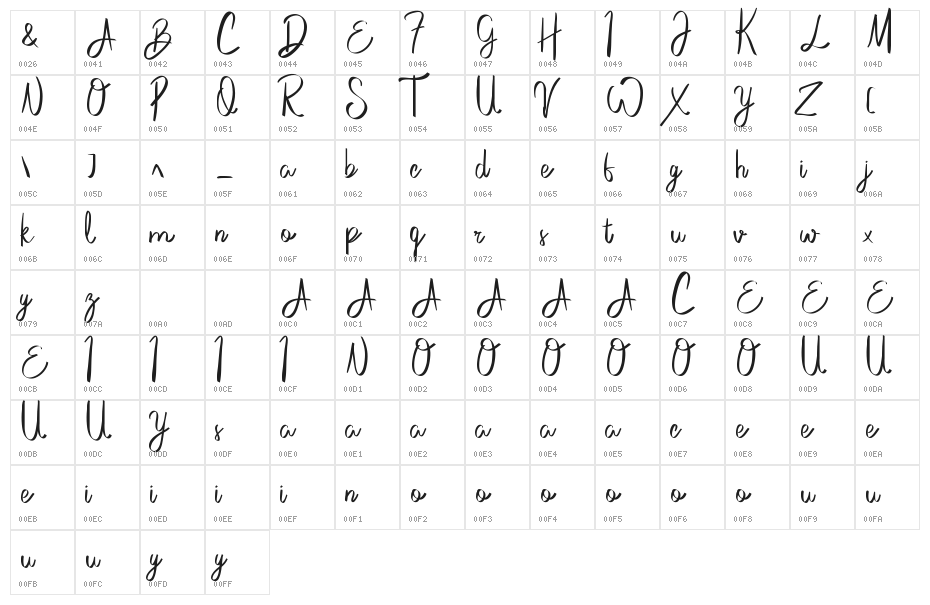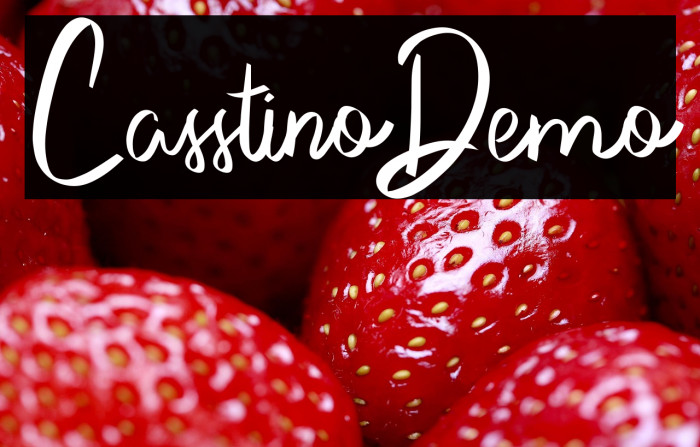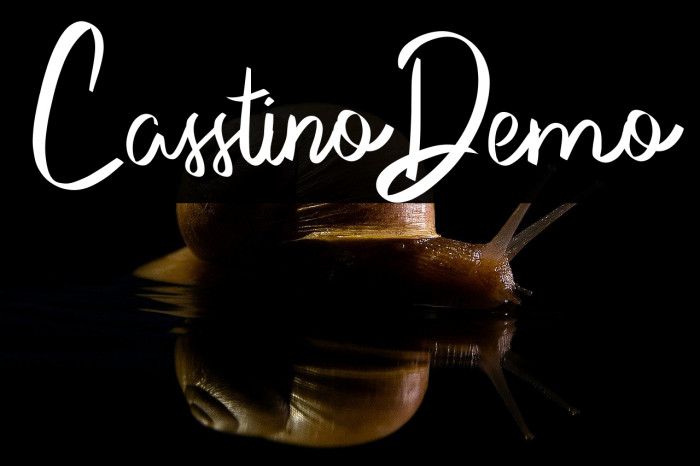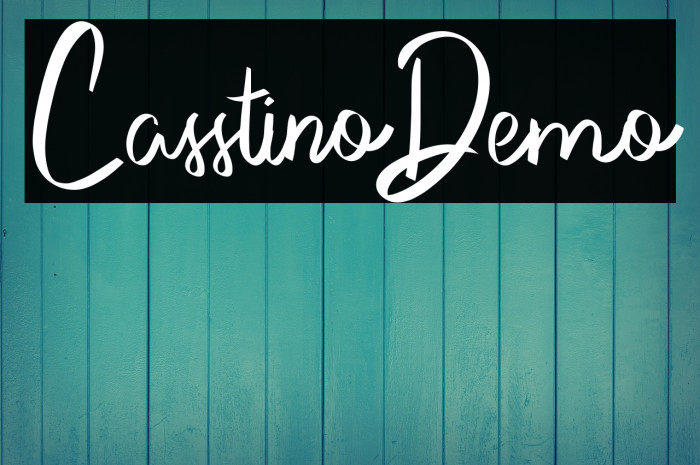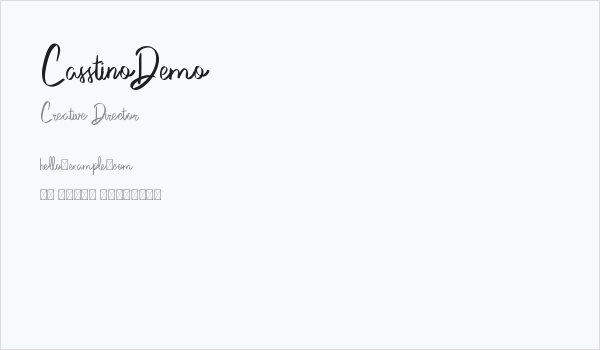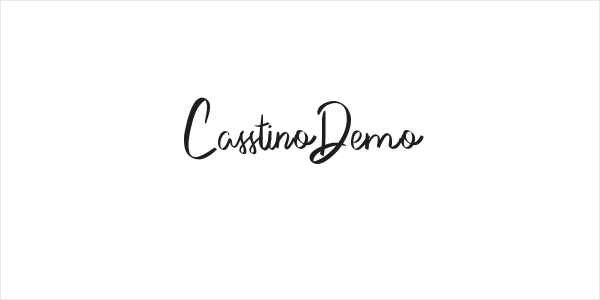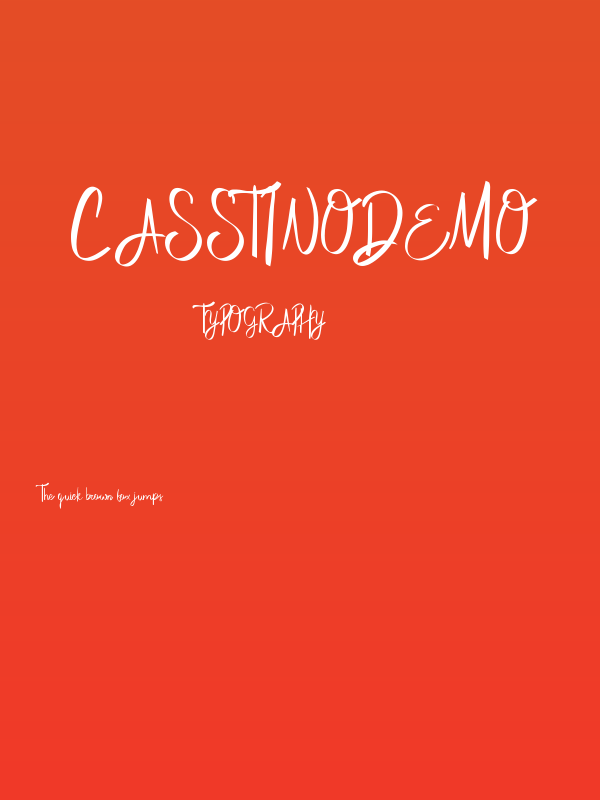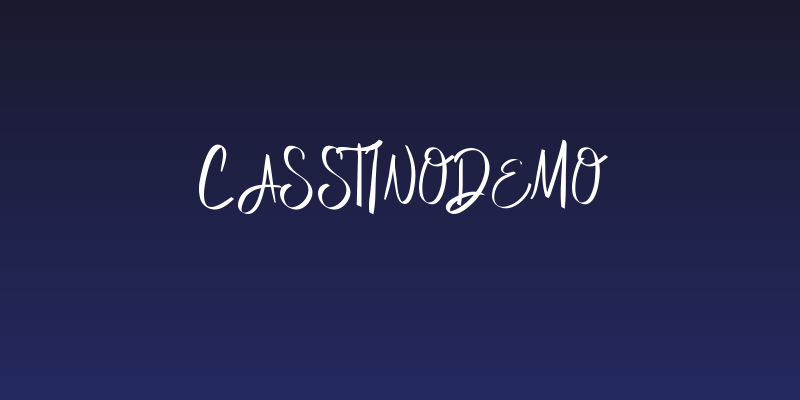
CasstinoDemo Font
CasstinoDemo Description
This font features an elegant and flowing script style, characterized by its smooth, cursive letterforms. The strokes are fluid and connected, giving it a handwritten appearance that exudes sophistication and charm. The uppercase letters are tall and graceful, while the lowercase letters maintain a consistent flow, enhancing readability. The font includes a variety of special characters, adding versatility to its use. Its overall aesthetic is both modern and classic, making it suitable for a range of design projects.
| Overall Style | Elegant, Modern, Classic |
| Proposed Projects | Ideal for wedding invitations, branding, greeting cards, and elegant packaging designs. |